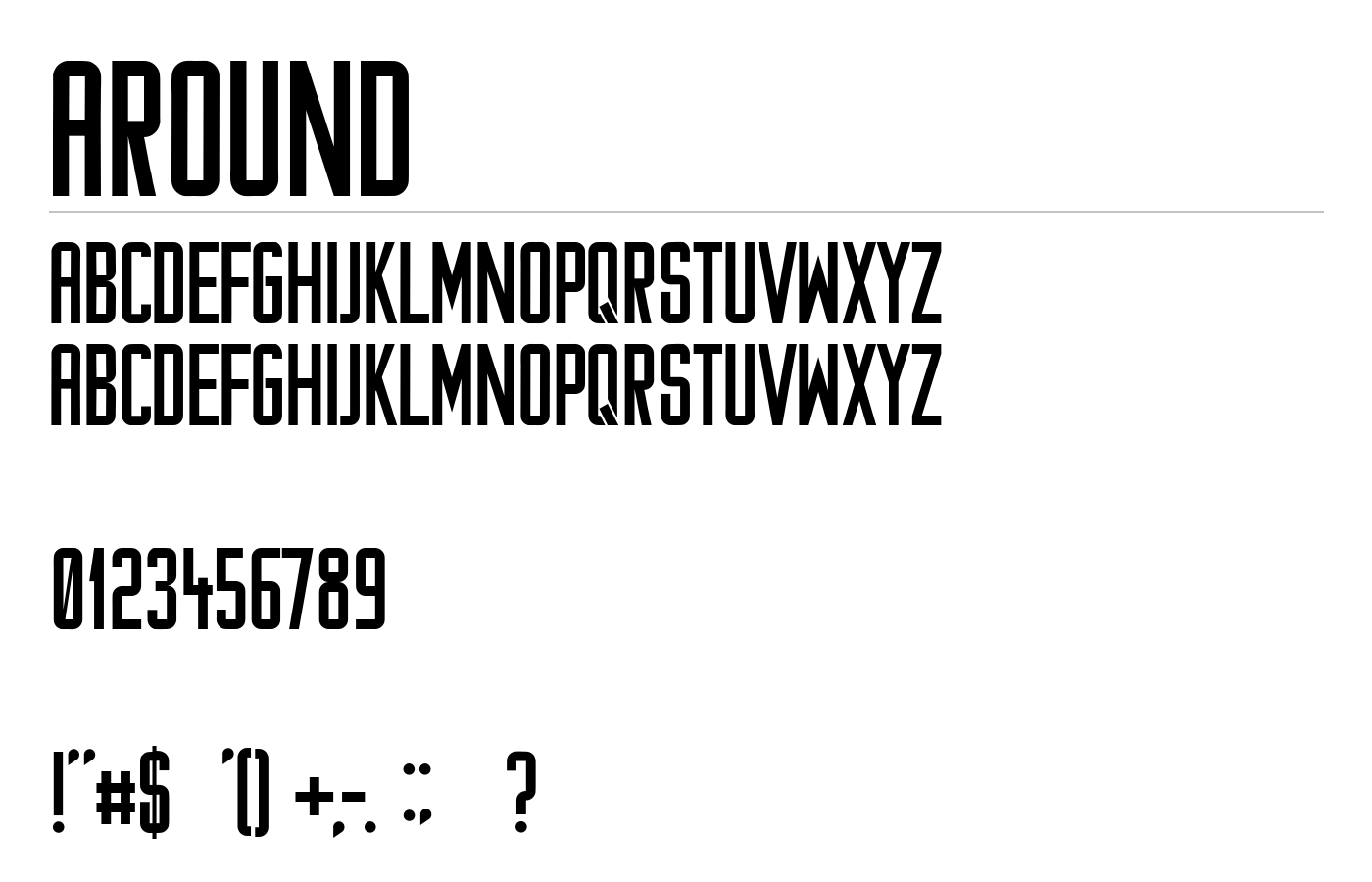
Around Font is a bold, condensed sans serif typeface with a tall x-height and strong vertical emphasis, giving it a modern and striking appearance. Its sharp, geometric letterforms and uniform stroke weight make it ideal for impactful headlines, logos, and branding where a confident, contemporary vibe is desired. This font works well in design contexts that need a clean yet assertive statement, such as fashion, tech, and editorial projects.
Around Font
About Around Font